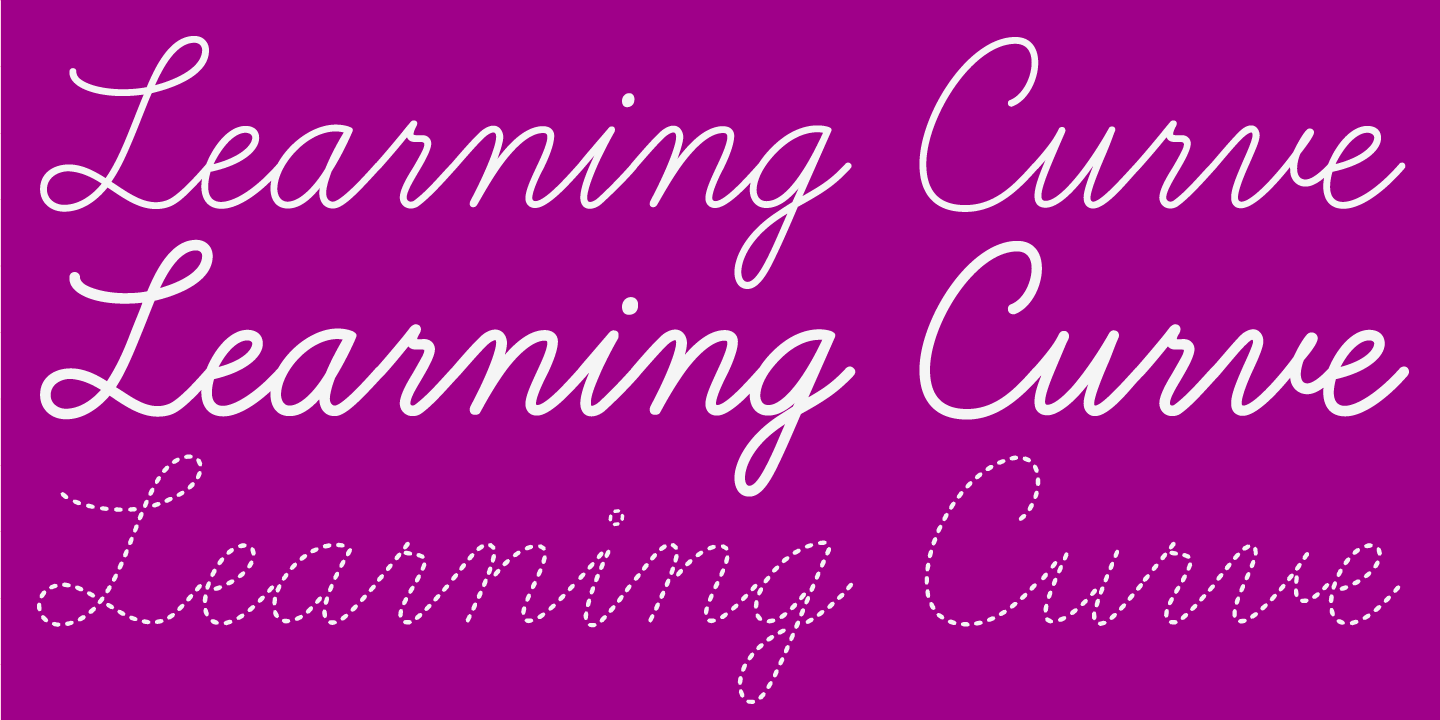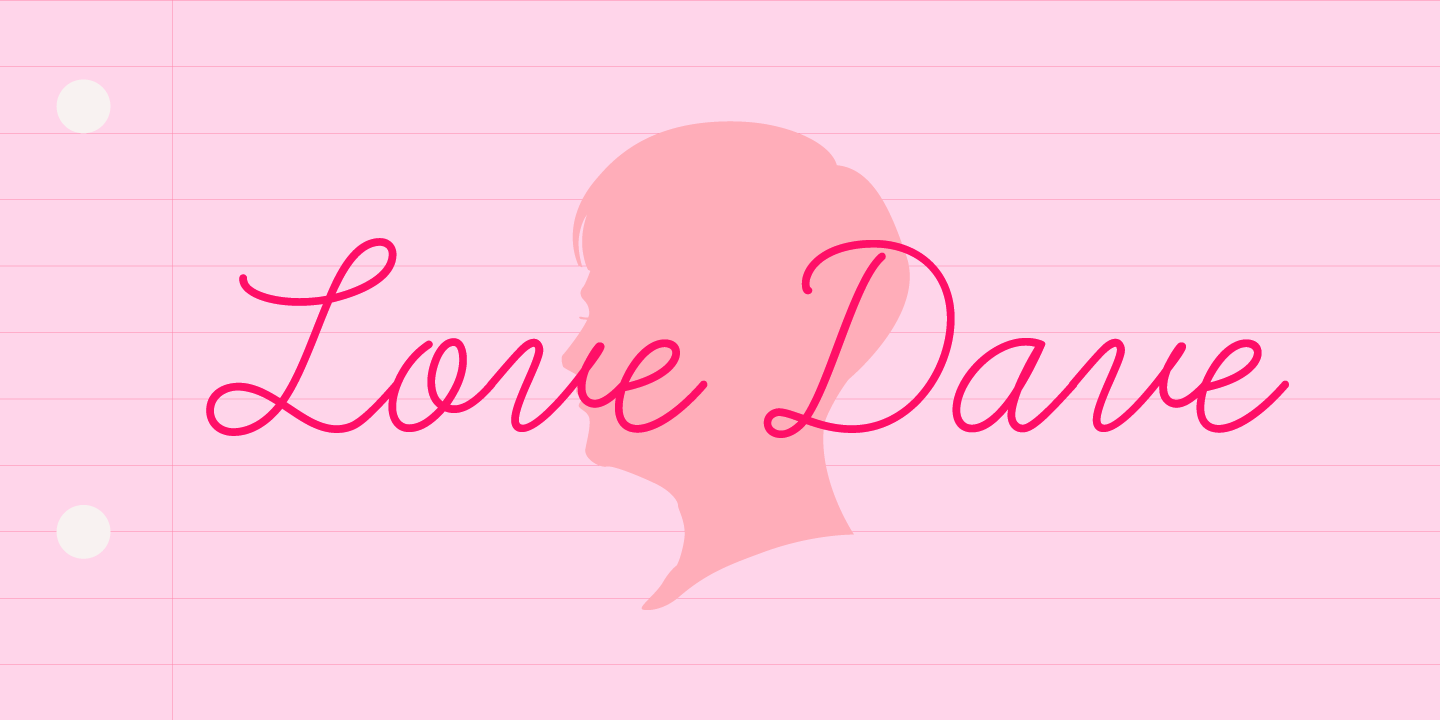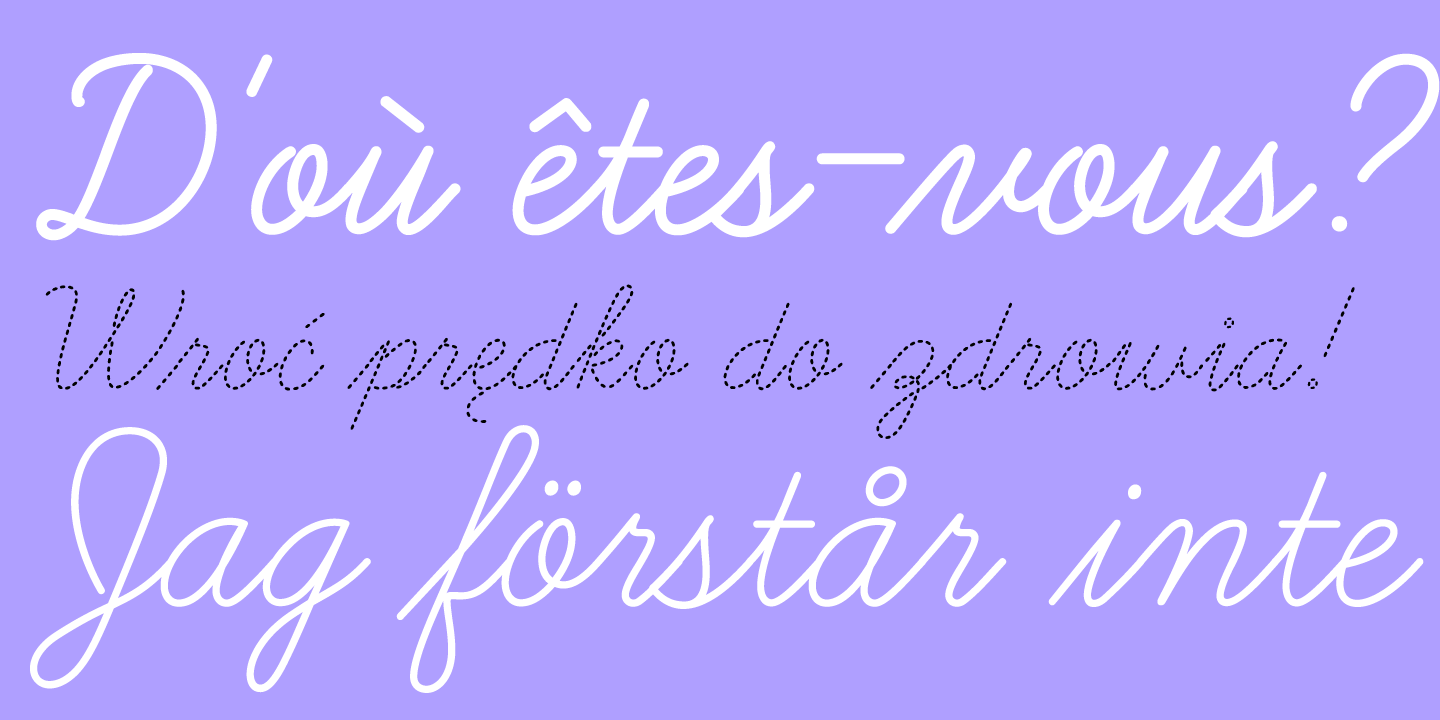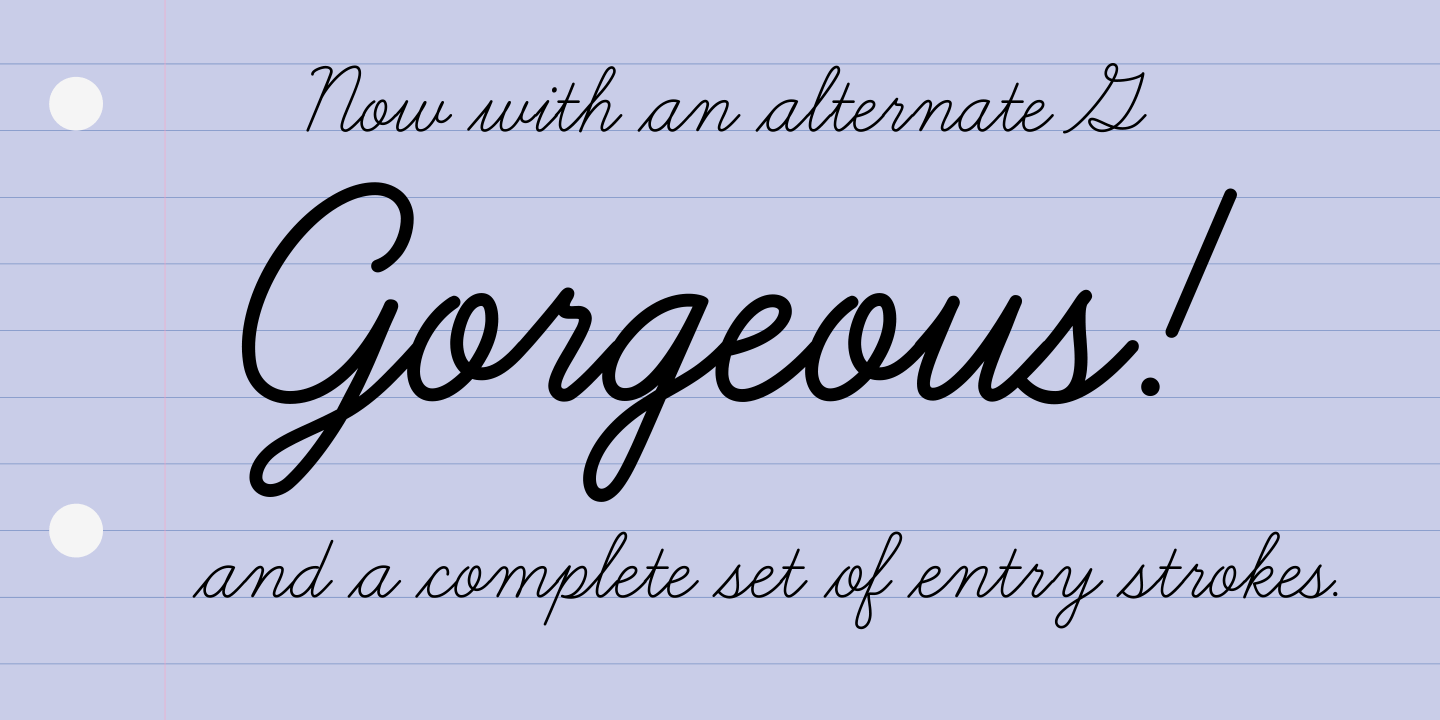
Learning Curve 4.0
Learning Curve mimics traditional cursive handwriting worksheets, but with a modern style that I developed from my handwriting.
This is the second major update. It was a lot of work, but it's finally done!
In the latest version, you will find a lot of new features. First, the Learning Curve family finally has a bold style! Language support was increased to include Central European. Some characters were redrawn to give them a little more finesse. The dashed version was completely redrawn to eliminate the overlapping dashes. Lastly, a dingbat was created to house the guidelines and drills. Learning Curve has never looked better!
Here is what's included: Learning Curve Regular, Learning Curve Bold, Learning Curve Dashed Learning Curve Dings, Learning Curve Starts Regular, Learning Curve Starts Bold, Learning Curve Dashed Starts, Learning Curve Alt G Regular, Learning Curve Alt G Bold & Learning Curve Dashed Alt G.
Update 11/19/21: Added a closed loop Q to the Alt G version, select style 1 or select it from the glyphs palette.
Update 9/10/21: Fixed the fi and fl ligatures that were not coded correctly with the starting letters.
Update 9/25/20: Added complete set of starting letters for lowercase. Either use the OpenType version and select Contextual Alternates in the menu or use the Starts fonts. Also added a new version with an alternate G.